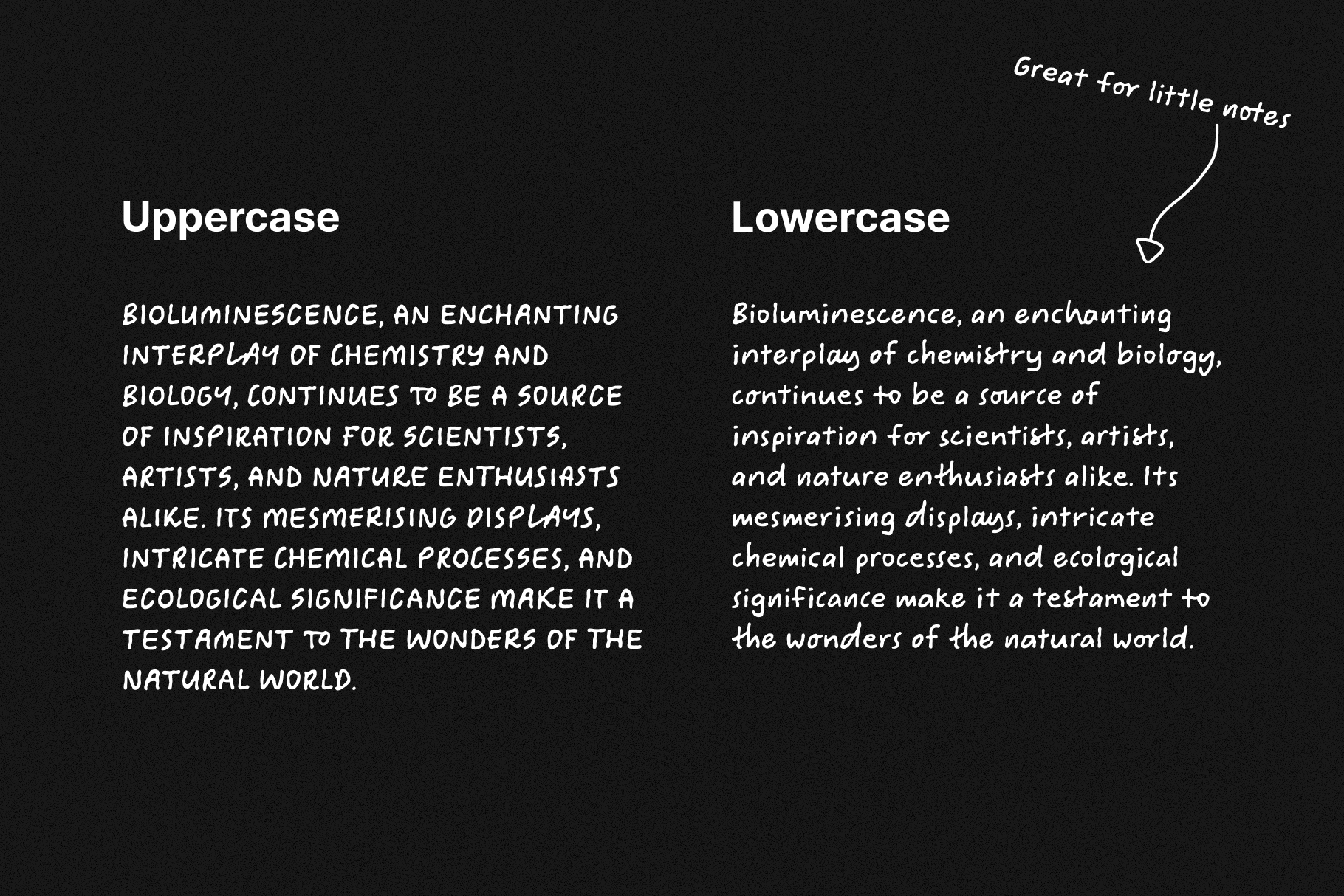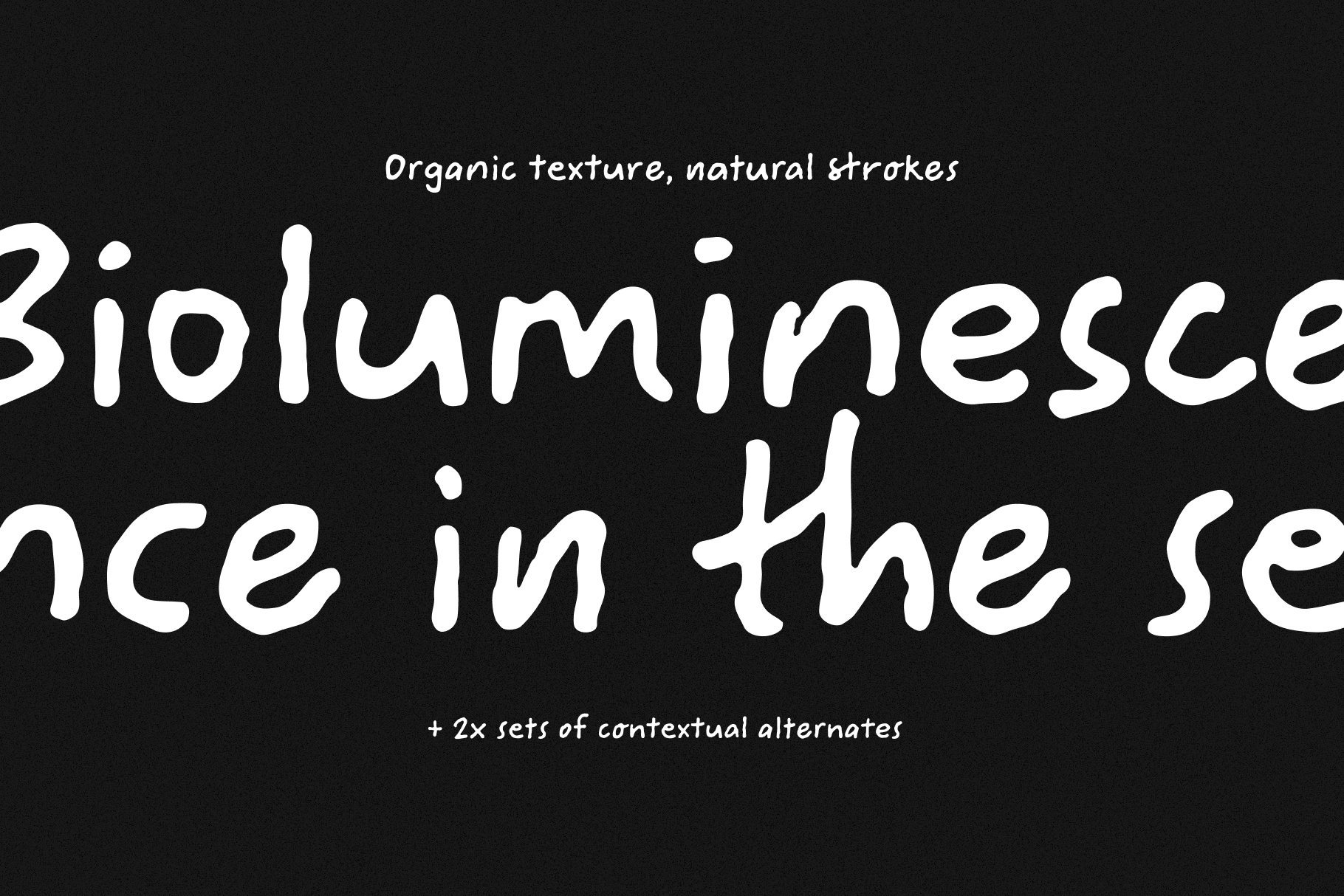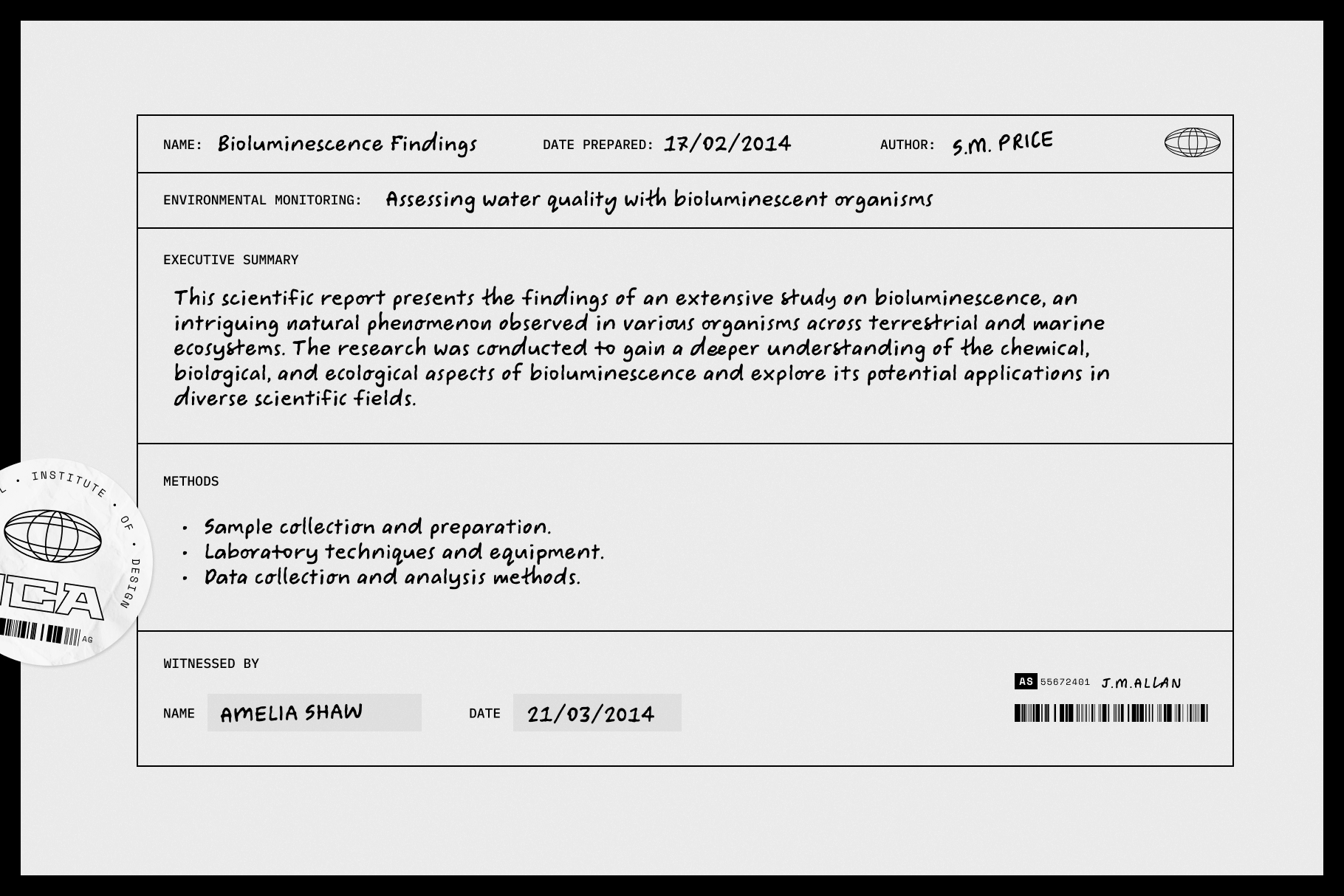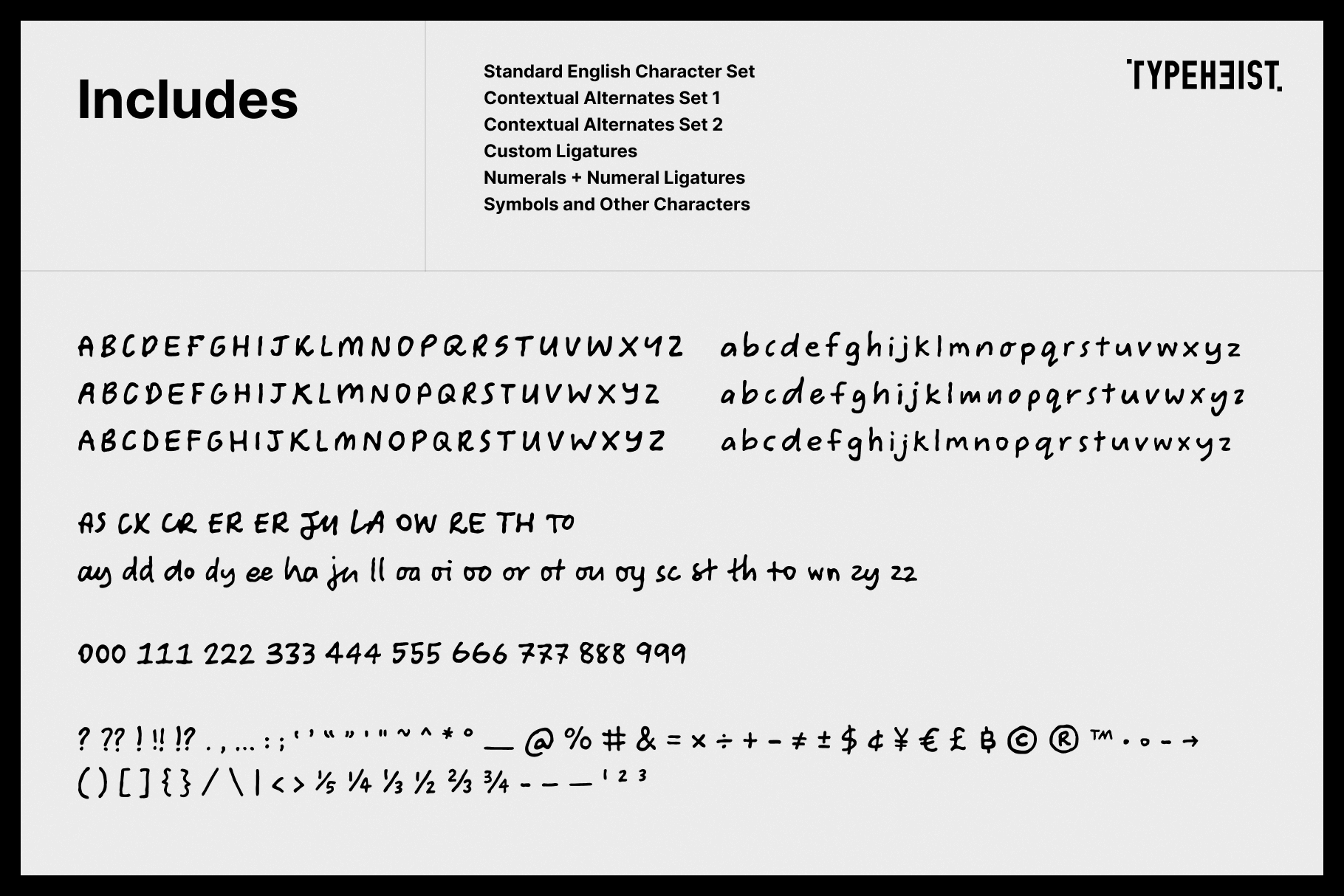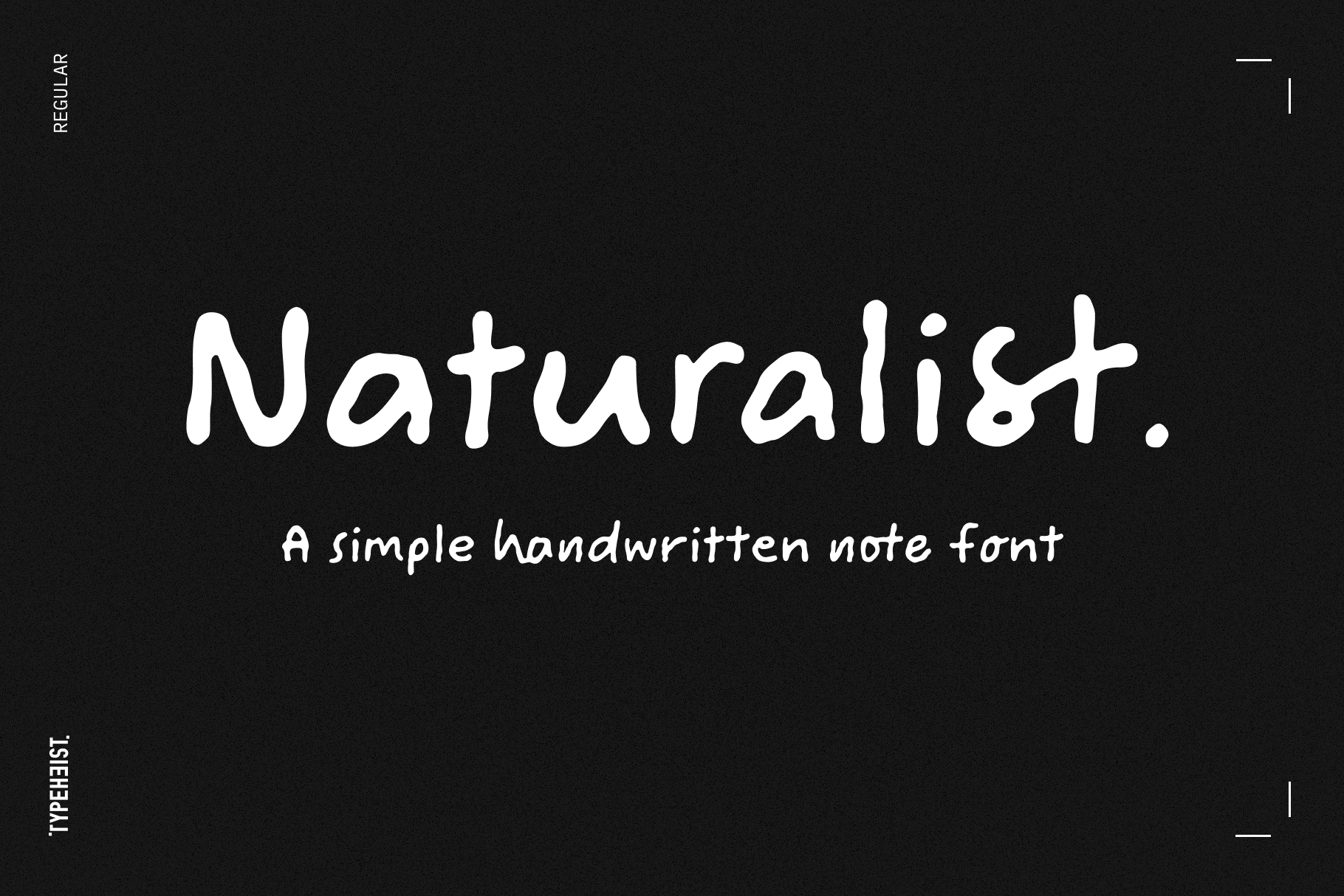
Naturalist is a simple (but seriously charming) handwritten notes font. With it’s approachable, slightly textured vibe, Naturalist font is perfect for anywhere you need annotations, labels or a warm and realistic feel.
Naturalist now supports a wide range of Latin-based languages, including English, French, German, Spanish, Portuguese, Italian, Dutch, Icelandic, Norwegian, Danish, Hungarian, Swedish, Finnish, Afrikaans and more.
Just like real handwriting, Naturalist includes ligatures for characters such as ee, th and st where the characters are joined. It’s been poked, prodded and perfected giving you more texture, more warmth and more handwritten authenticity.
Take your notes from bland to brilliant with this bookish handwriting font that captures the essence of your most spirited study sessions.
Why is it special? In additional to its custom ligatures, Naturalist includes 2x sets of contextual alternates for each A-Z and 0-9 characters. This means one of the three available characters are selected randomly when double letters are typed.
Whether you aim to capture the nostalgic essence of your old school books and study notes or bring a touch of authenticity to complex maths and science manuscripts, Naturalist is your handwritten accomplice.